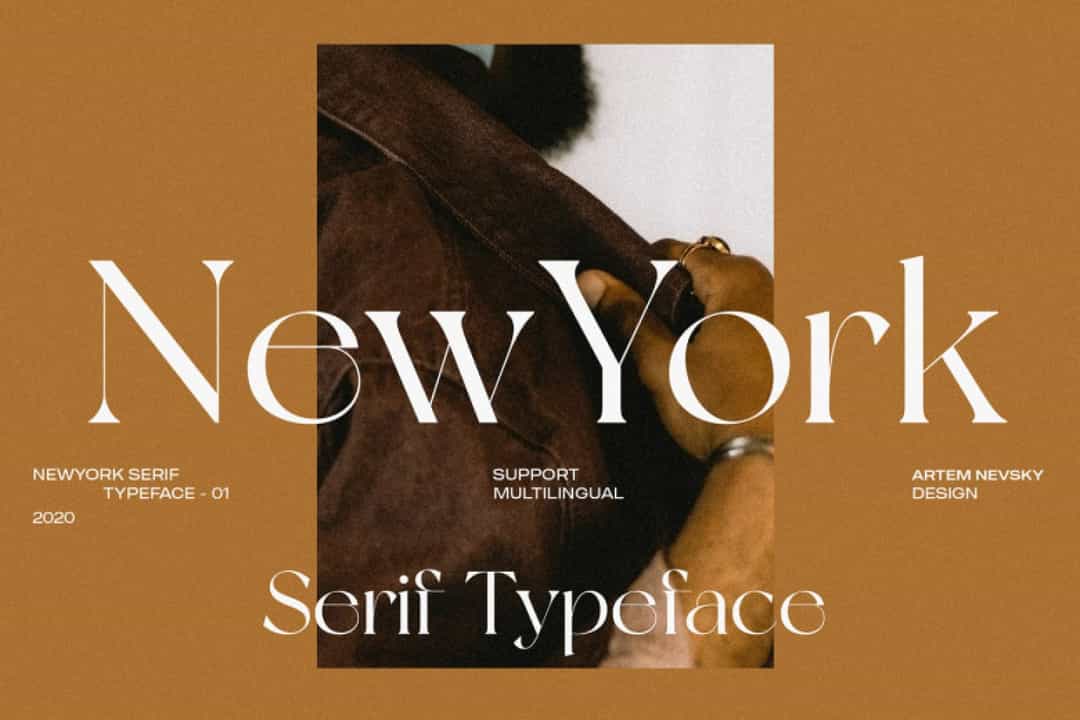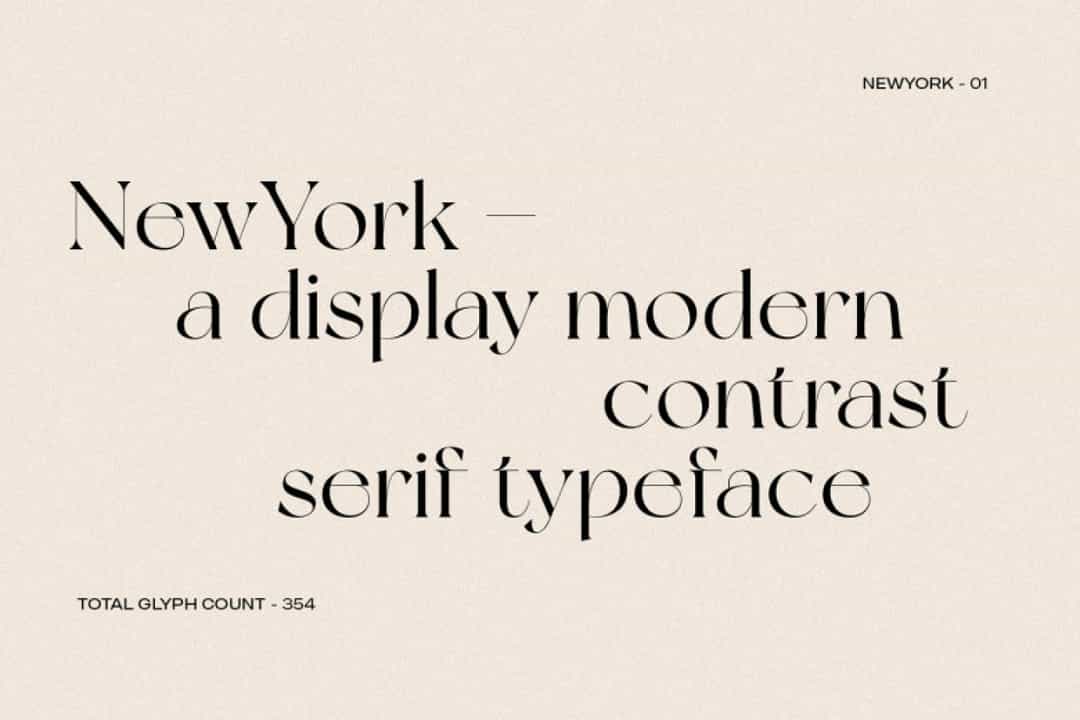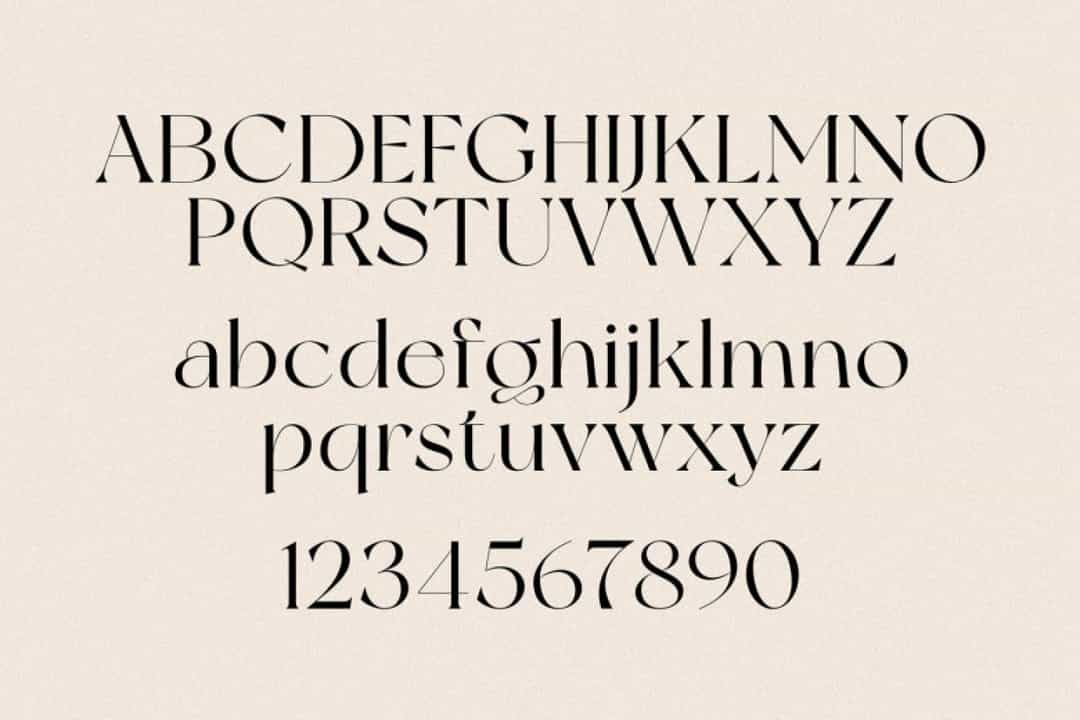
New York is a beautiful and modern serif font that has a touch of contrast to it. This font was designed and developed with Artem Nevsky and it can be used in the magazines, fashion branding logos, social media artwork and any other kinds of art projects.